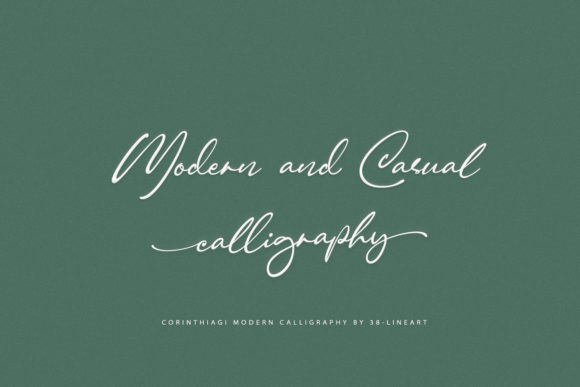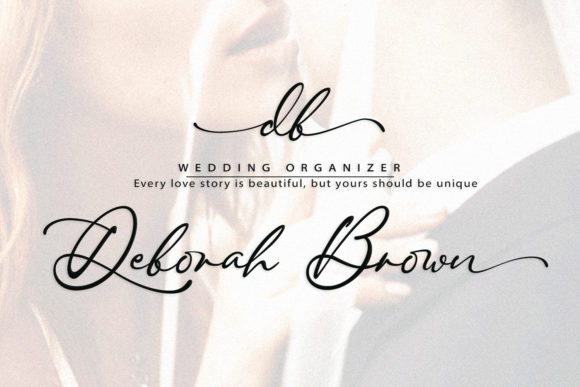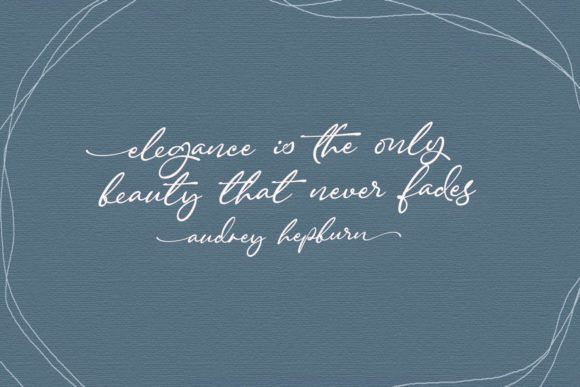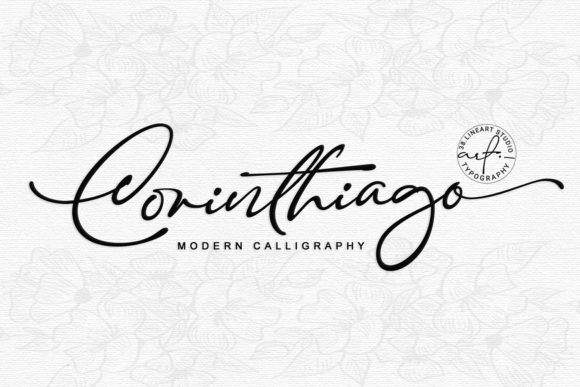
Introduction to Corinthiago Font
Corinthiago feels equally charming and elegant.
This stunning handwritten font is a stylish homage to classic calligraphy It features a varying baseline, smooth lines, gorgeous glyphs and stunning alternates.